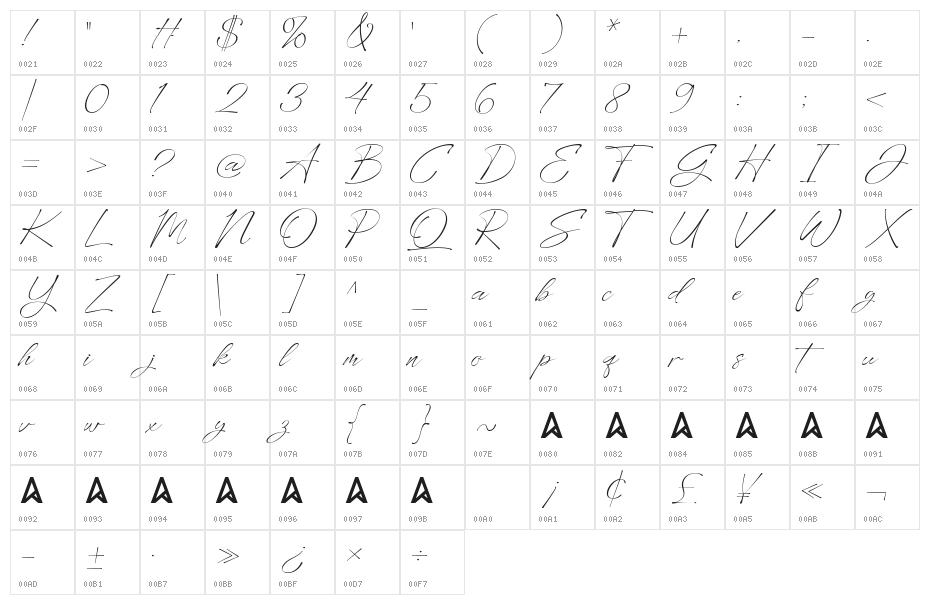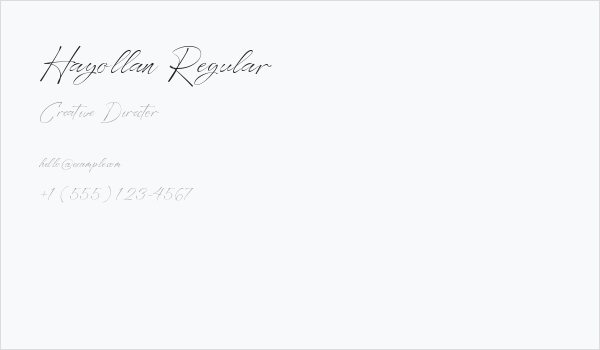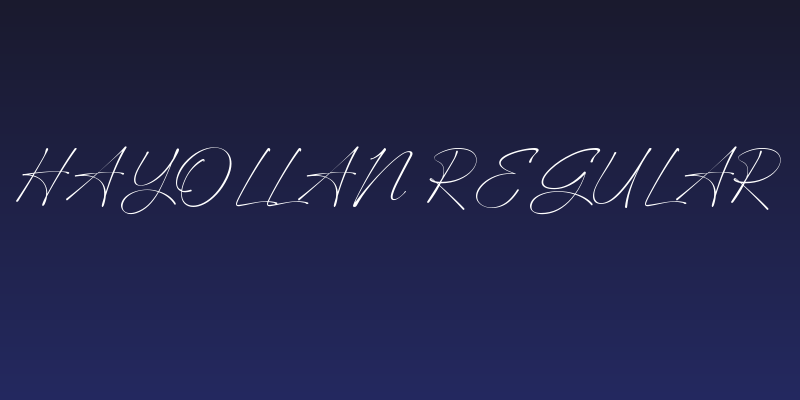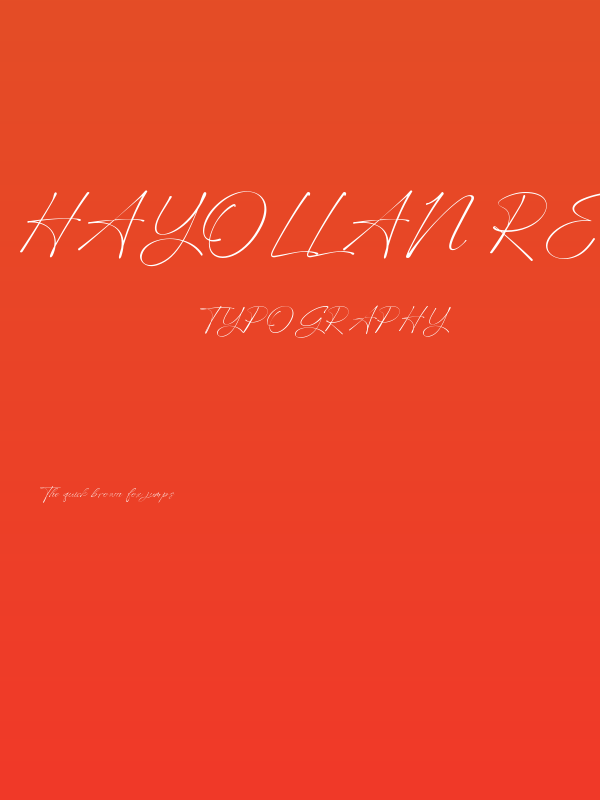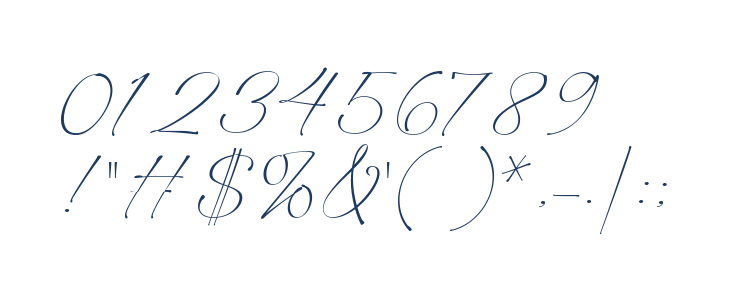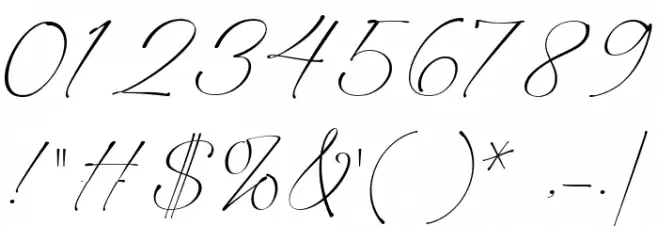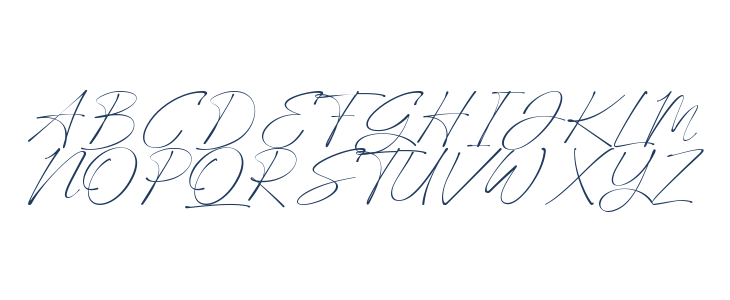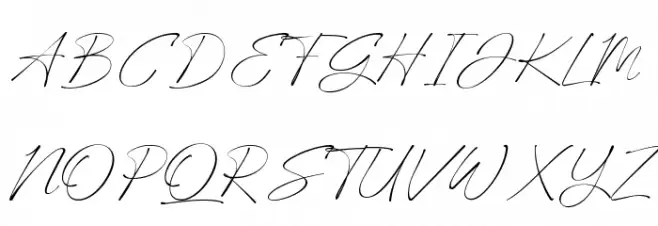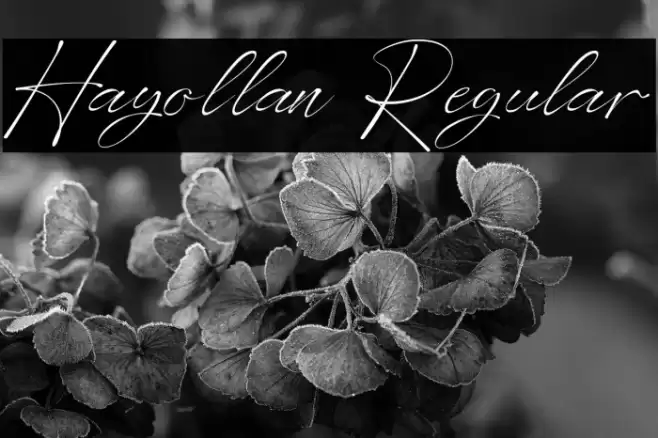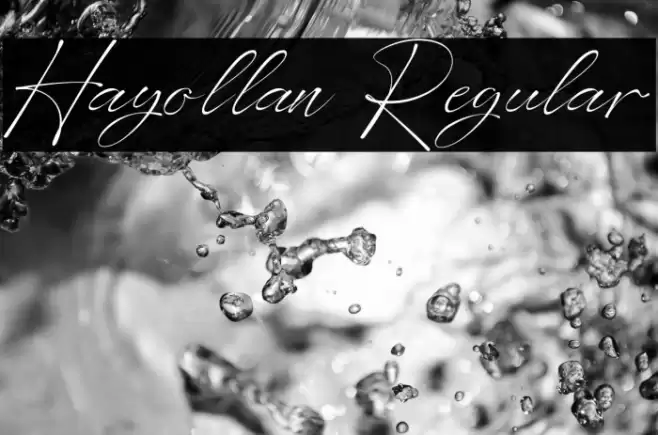
Hayollan Regular Font
Hayollan Regular Description
Elegant, flowing script font with thin, delicate strokes and a handwritten, calligraphic appearance. The characters are connected in a natural, cursive style, with high contrast between thick and thin lines and expressive ascenders and descenders.
| Overall Style | Decorative, Elegant, Handwritten |
| Use Case | Logos, Invitations, Headlines, Decorative text |
| Proposed Projects | Wedding invitations, personal branding, greeting cards, elegant packaging, event posters. |